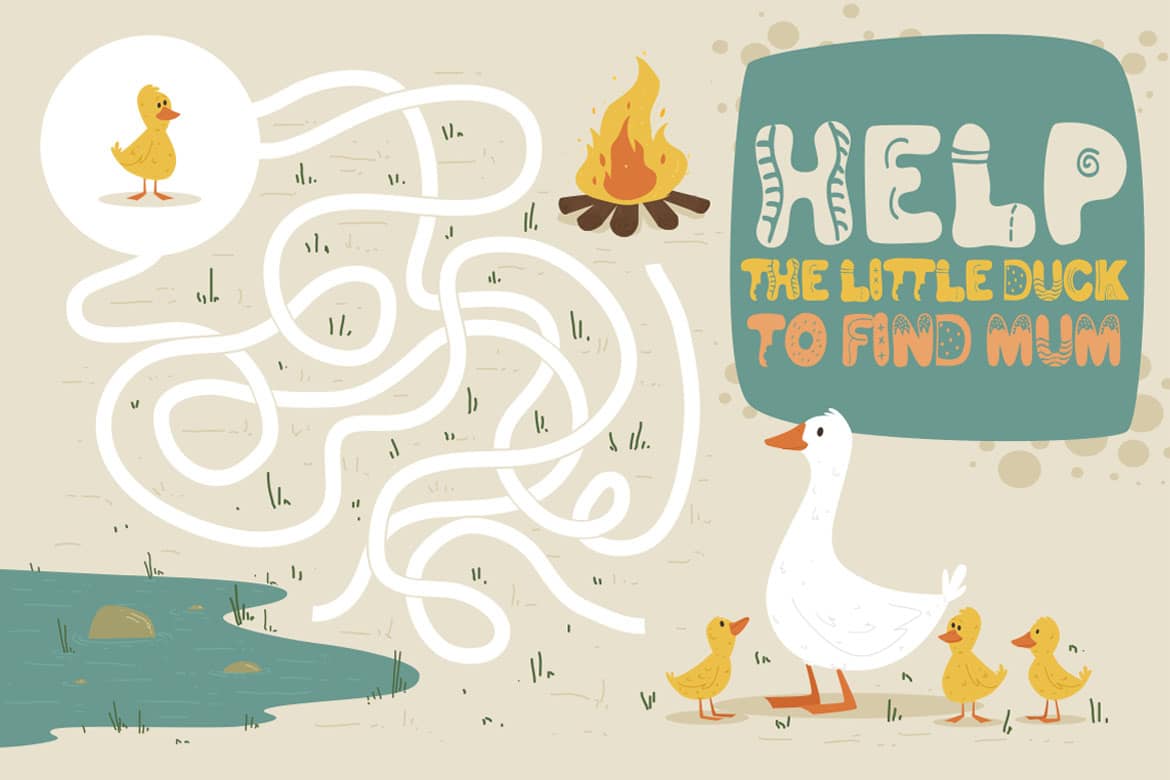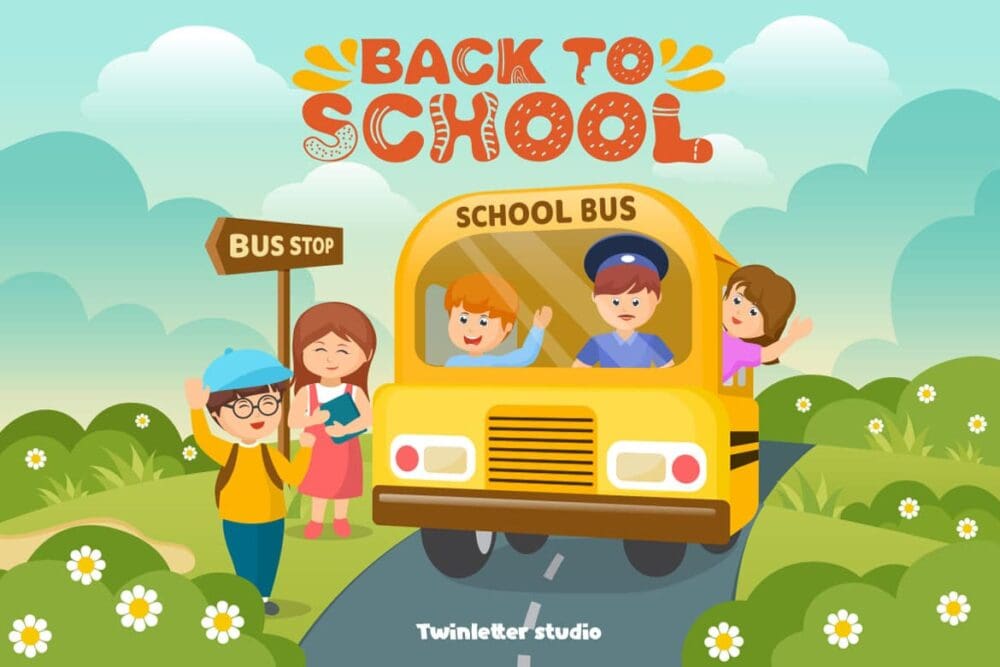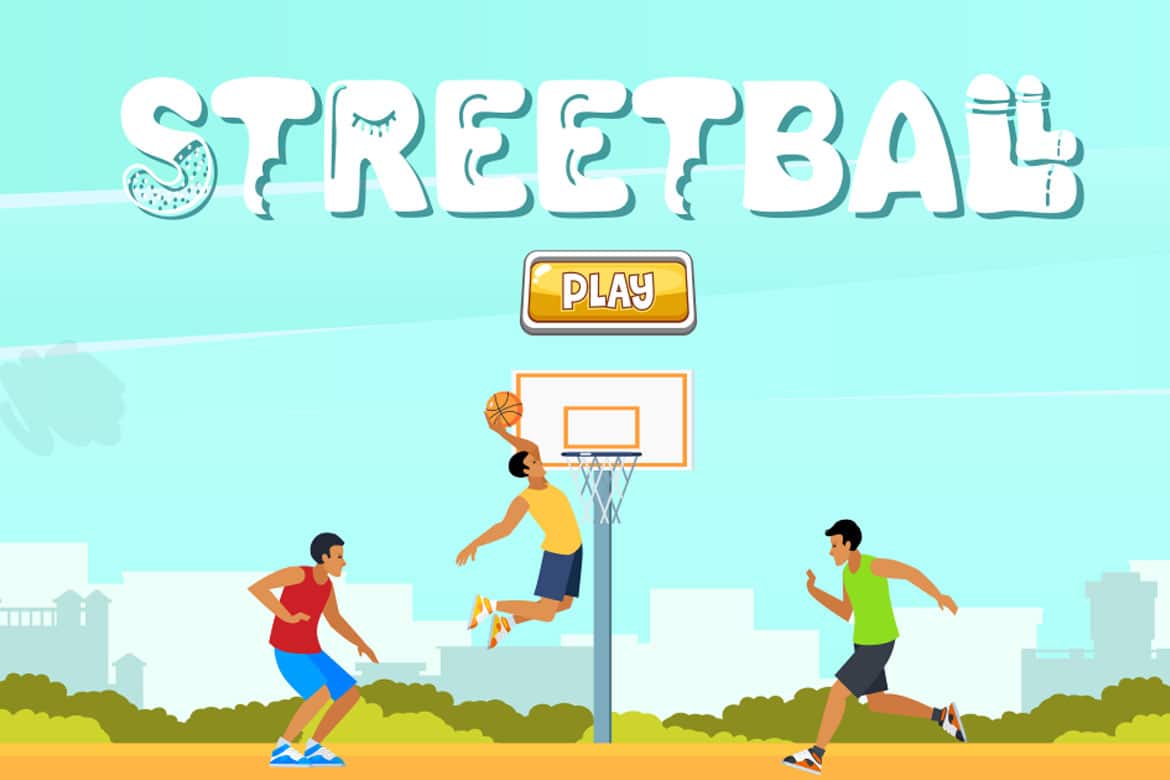
Dollan Font
Dollan, our newest whimsical typeface, is now available. This font is worth implementing in your remarkable projects since it is a distinctive and eye-catching display font that is dynamically crafted to bring out the originality in each letter. This typeface has a cheerful, unique, energetic, and unique vibe to it, and it will give your creative work a unique look as well.